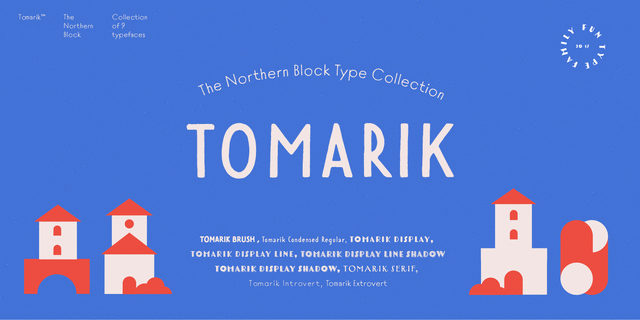
About Tomarik PosterThis stylish hand-drawn sans serif is a part of Tomarik vibrant handwritten font collection. The playful addition to any creative depository. Assembled with the ""pick-and-mix"" idea in mind, it offers a great variety of flavor and zest.
Tomarik features nine distinctive weights with Latin and Cyrillic and includes OpenType features such as fractions, inferiors and superiors. Designed by Mariya Pigoulevskaya in 2017. Tomarik™ is a trademark of The Northern Block.
home, warm, cozy, confidence, Soft, naive, manual, brumal, man-made, handicraft, home-made, original, alive, distinctive, affable, friendly, pleasant, playful, lamp, nice, cute, dynamic, cheerful, cartoonish, glad, happy, positive, festive, good quality, kind, healthy, slim, tall, conservative, historical, craft brewed